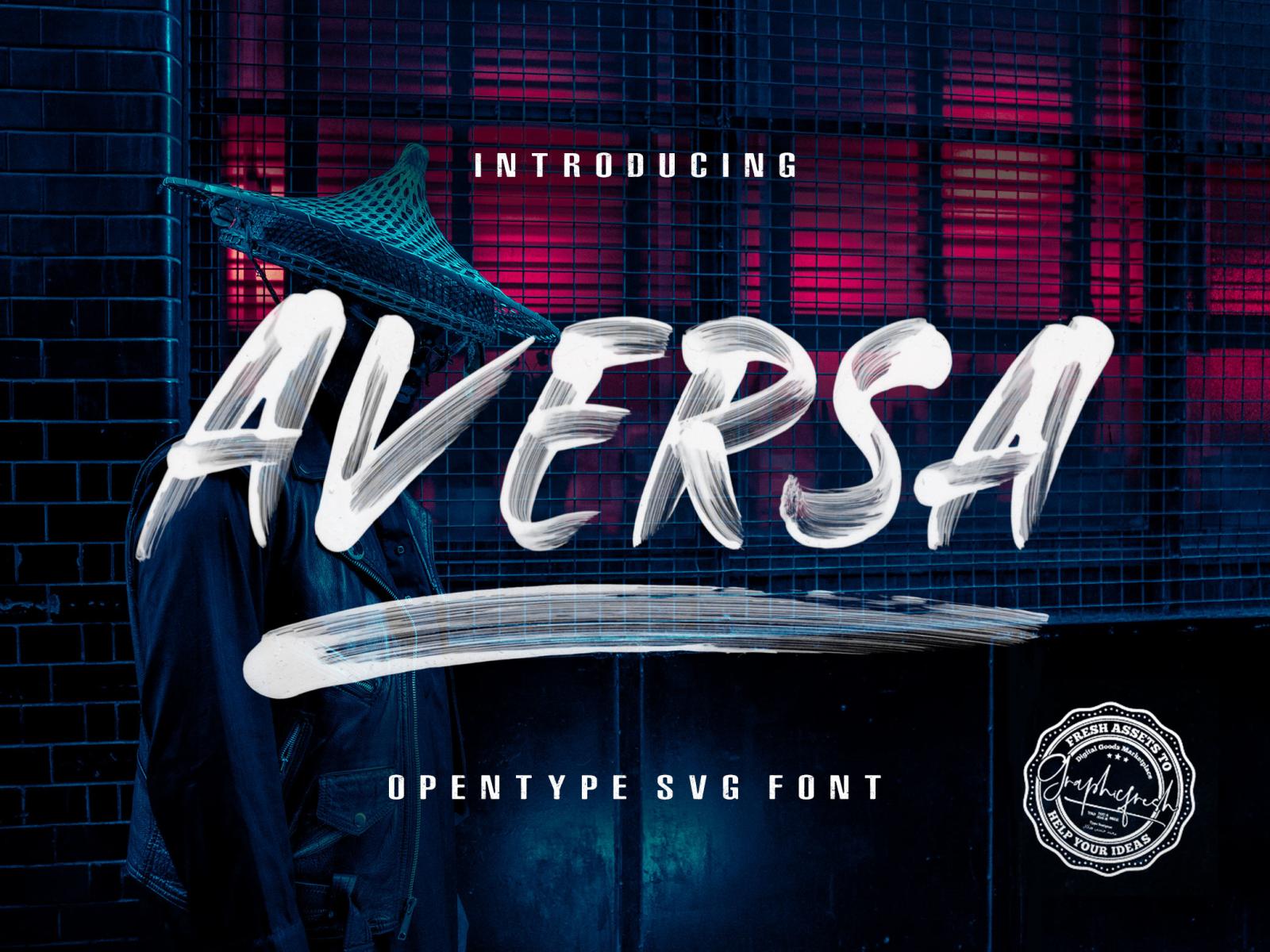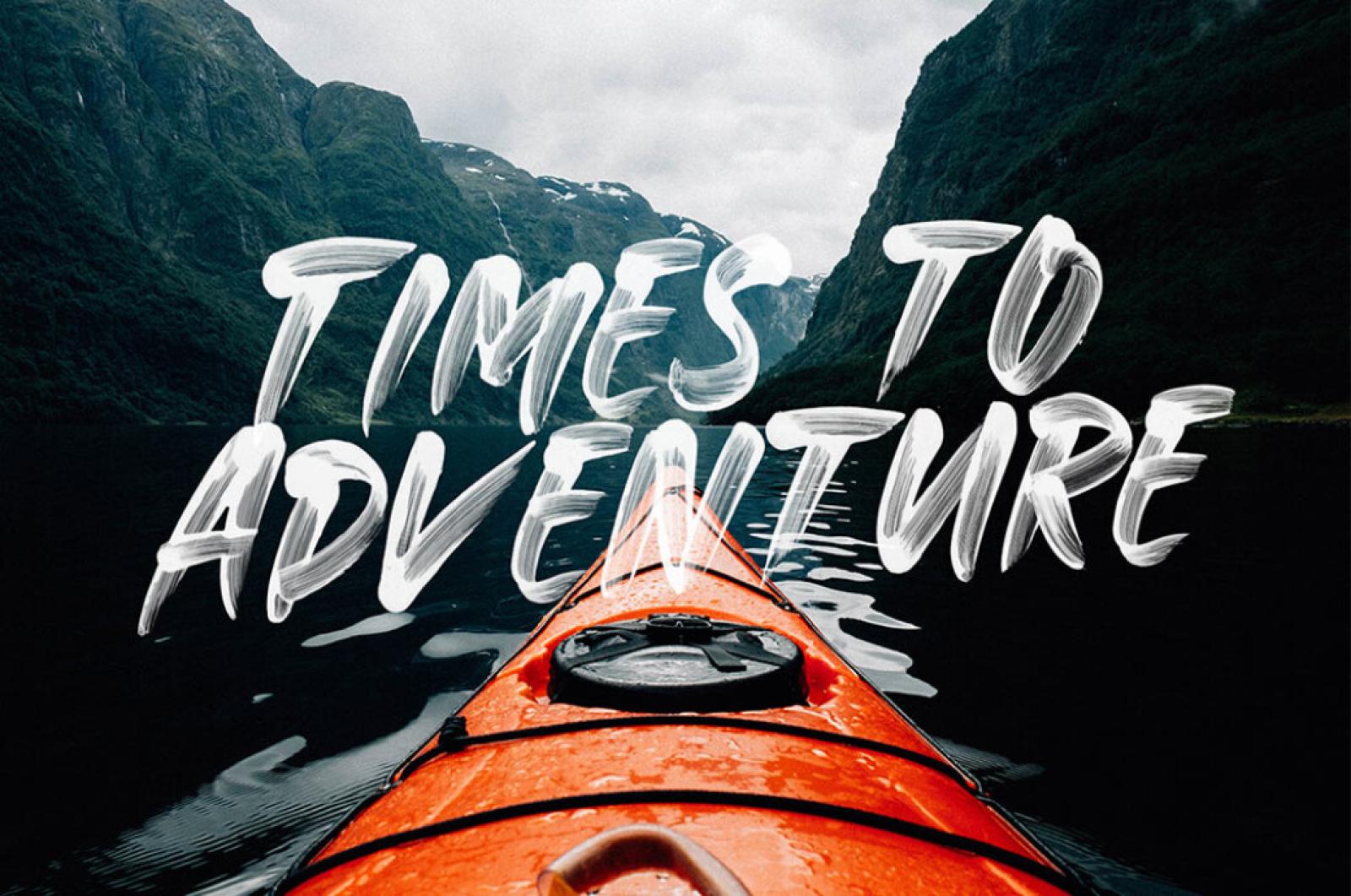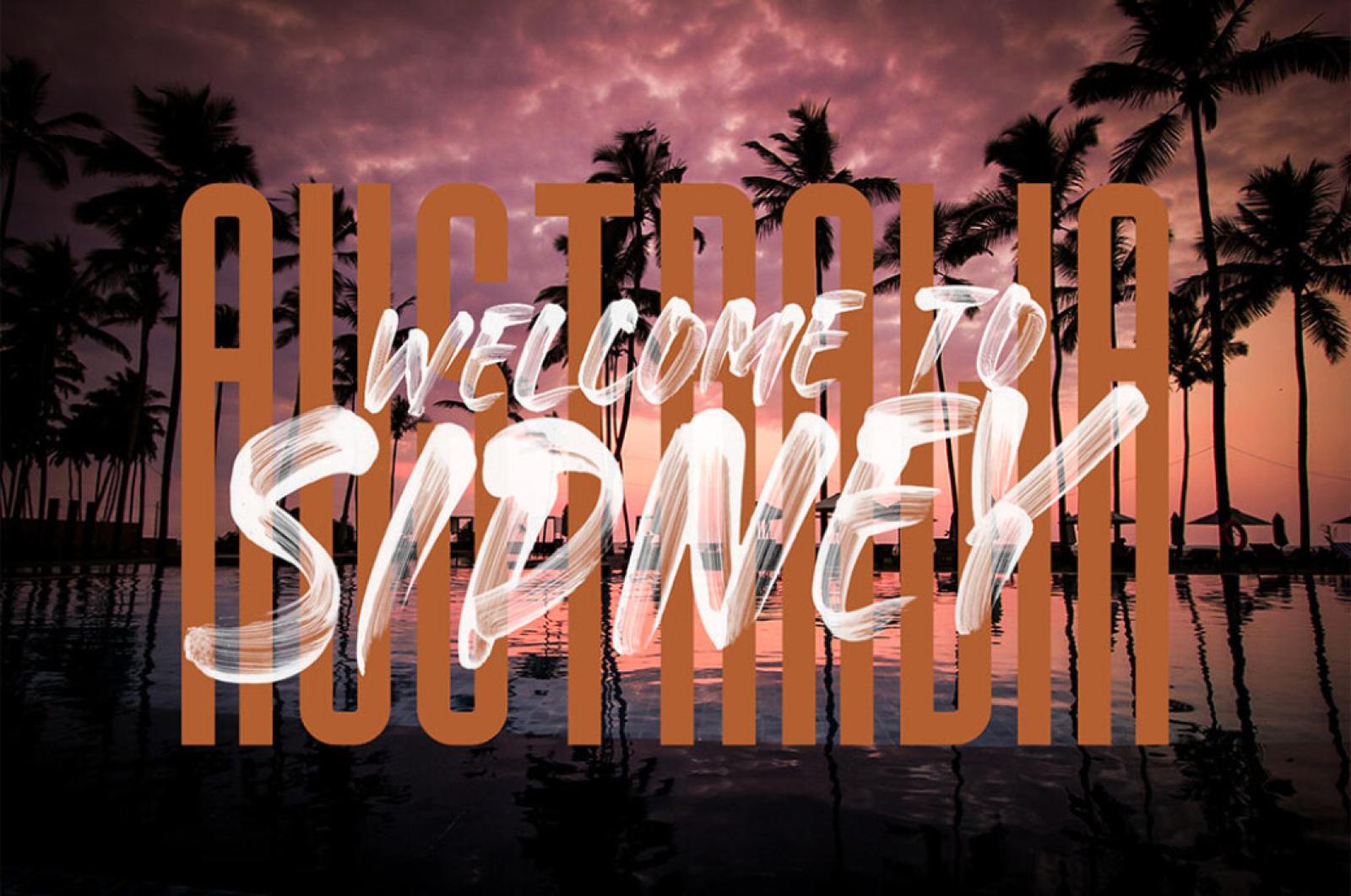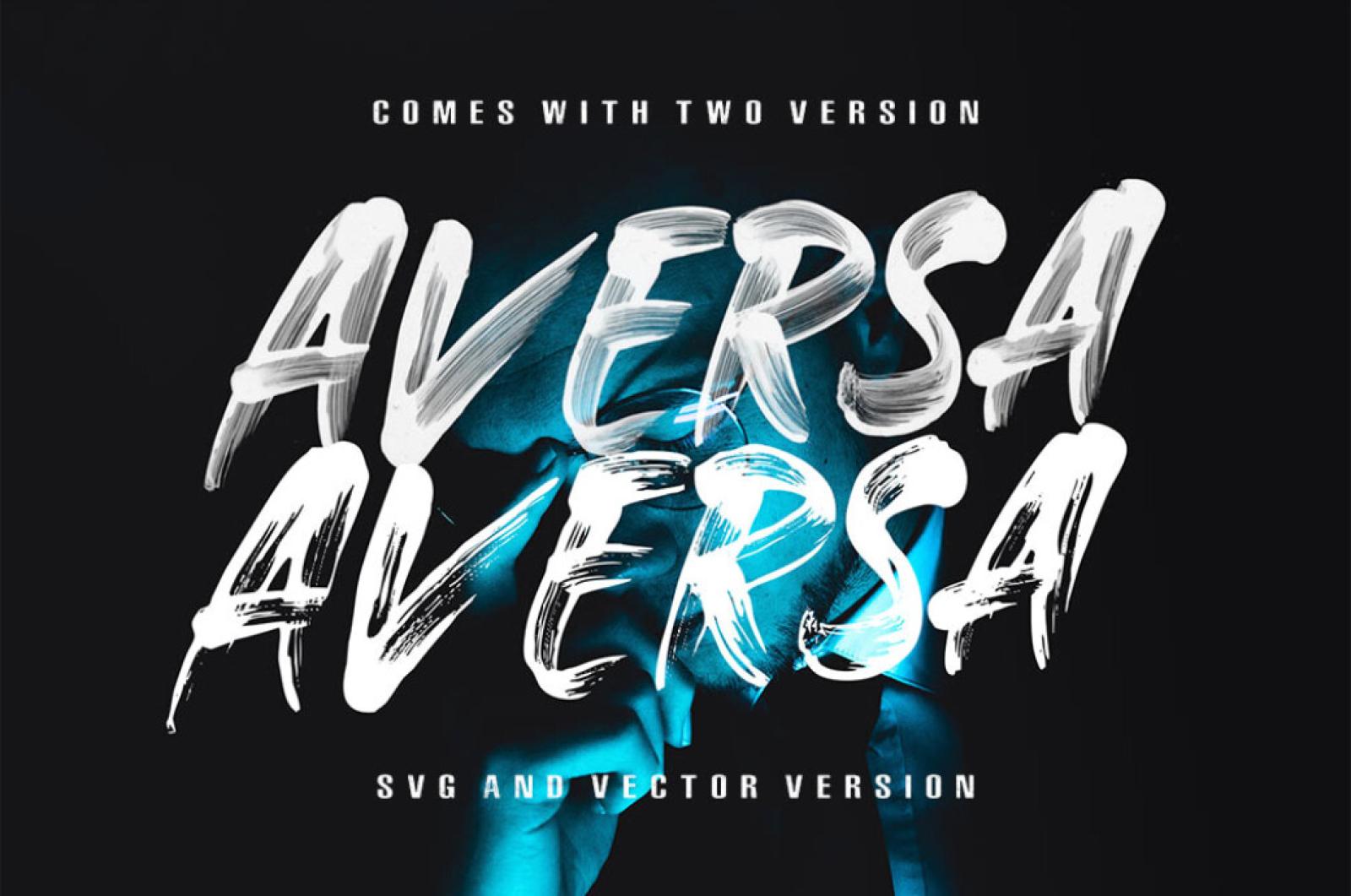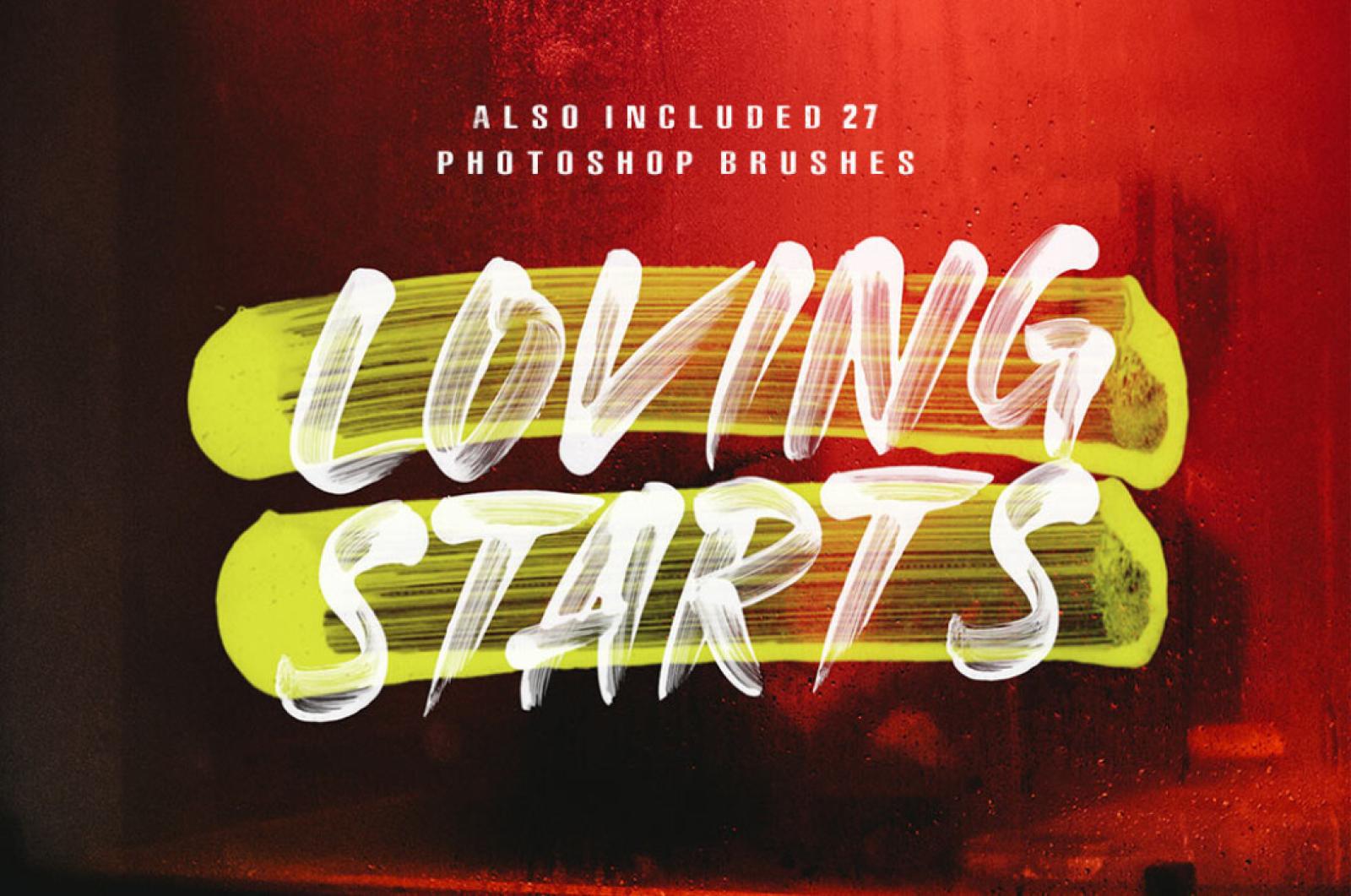
Aversa Brush Font
Brush strokes dipped in paint put on the best paper and you now have this epic SVG font! Every bit is charged with dynamics, to highlight your talent among the others and shout louder.
The realistic brush effect is complimented with 27 Photoshop brushes as a final touch with the paint oil effects. The package also includes the vector version of this font to fit any of your design needs.It will be perfect for posters, packaging, advertisements, headlines, branding, signboards, and whatever else you want from an urban look and feel!